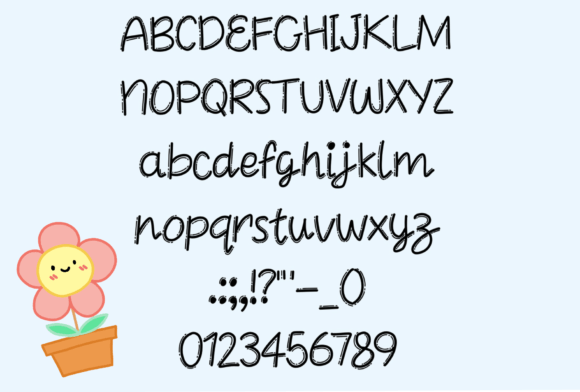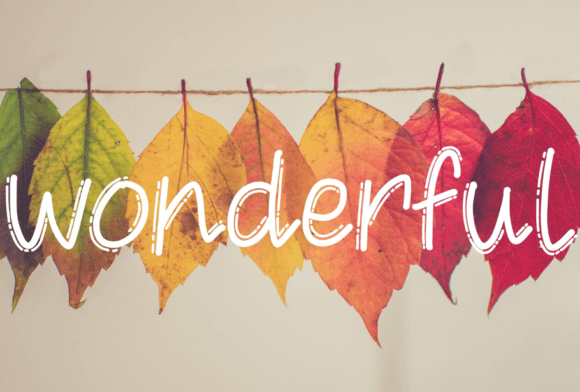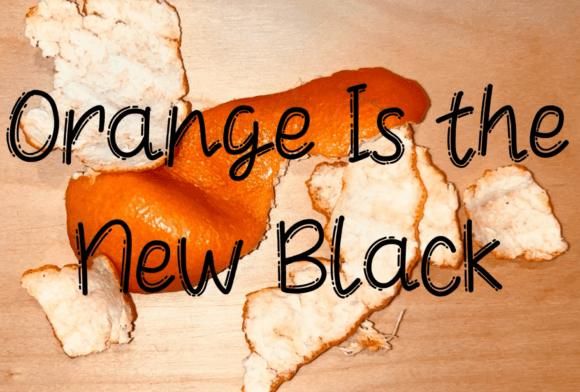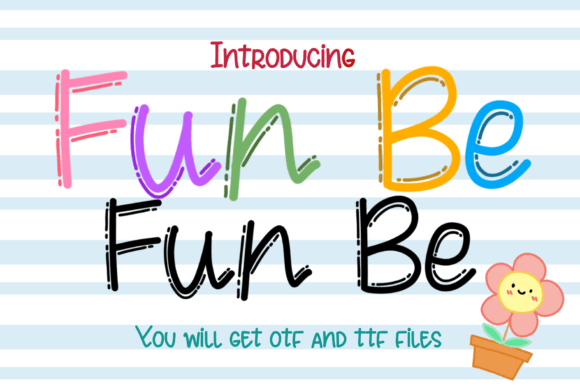
Introducing Fun Be Font: The Sweet and Friendly Handwritten Font
Are you tired of using the same old fonts in your designs? Do you want to add a touch of personality and whimsy to your projects? Look no further than Fun Be Font, a sweet and friendly handwritten font that’s perfect for designers and crafters alike. With its natural and unique style, Fun Be Font is incredibly versatile and can be used in a wide range of designs, from invitations and greeting cards to branding and advertising.
The Characteristics of Fun Be Font
So, what makes Fun Be Font so special? For starters, its handwritten style gives it a warm and approachable feel that’s perfect for designs that need a personal touch. The font’s natural and unique style also makes it stand out from more traditional fonts, adding a touch of whimsy and playfulness to any design. And with its incredible versatility, Fun Be Font can be used in a wide range of projects, from formal and professional designs to more casual and creative ones.
The Benefits of Using Fun Be Font
There are many benefits to using Fun Be Font in your designs. For one, it’s incredibly easy to read and understand, making it perfect for designs that need to communicate a message clearly and effectively. Additionally, Fun Be Font is highly customizable, allowing you to adjust the font size, style, and color to fit your design needs. And with its unique and playful style, Fun Be Font is sure to grab the attention of your audience and leave a lasting impression.
Who Can Use Fun Be Font?
Fun Be Font is perfect for a wide range of designers and crafters, including:
- Graphic designers looking for a unique and playful font to add to their designs
- Crafters who want to add a personal touch to their DIY projects, such as handmade cards and invitations
- Small business owners who want to create a friendly and approachable brand identity
- Bloggers and social media influencers who want to add a touch of personality to their online content
Tips and Tricks for Getting the Most Out of Fun Be Font
Here are a few tips and tricks for getting the most out of Fun Be Font:
- Use Fun Be Font in combination with other fonts and graphics to create a unique and eye-catching design
- Experiment with different font sizes and styles to add emphasis and create visual interest
- Use Fun Be Font to add a personal touch to your designs, such as in invitations and greeting cards
- Don’t be afraid to get creative and try new things – Fun Be Font is a versatile font that can be used in a wide range of designs
In conclusion, Fun Be Font is a sweet and friendly handwritten font that’s perfect for designers and crafters who want to add a touch of personality and whimsy to their designs. With its natural and unique style, Fun Be Font is incredibly versatile and can be used in a wide range of projects. Whether you’re a graphic designer, crafter, or small business owner, Fun Be Font is a great choice for anyone looking to create a friendly and approachable brand identity. So why wait? Download Fun Be Font today and start creating your own unique and eye-catching designs!
The only limit is your imagination, so don’t be afraid to get creative and try new things with Fun Be Font. With its incredible versatility and playful style, Fun Be Font is sure to become a favorite in your design arsenal.